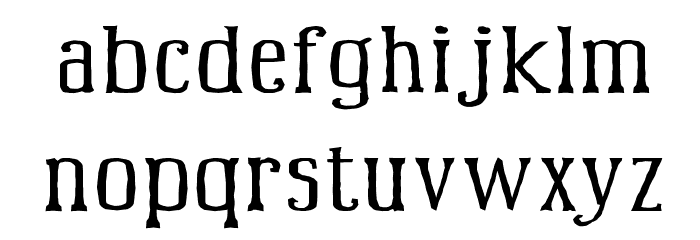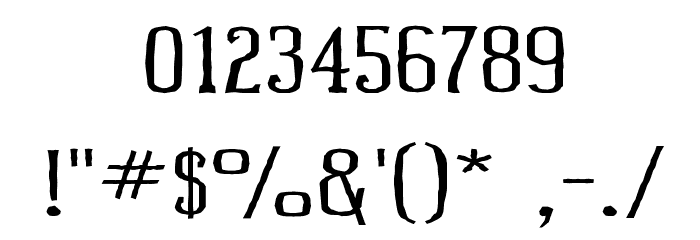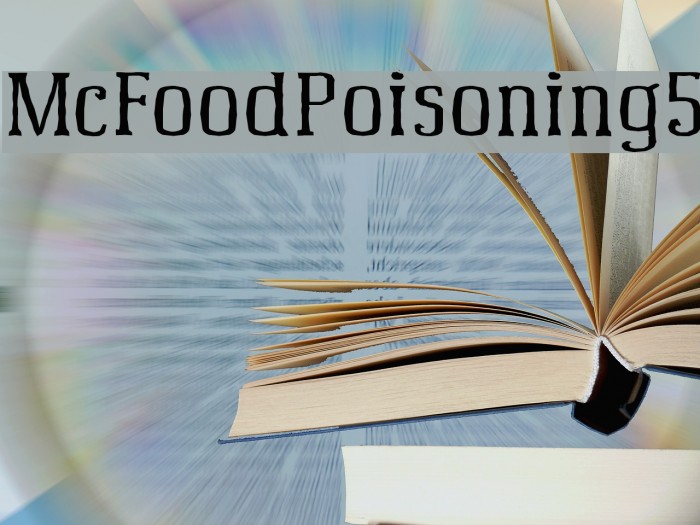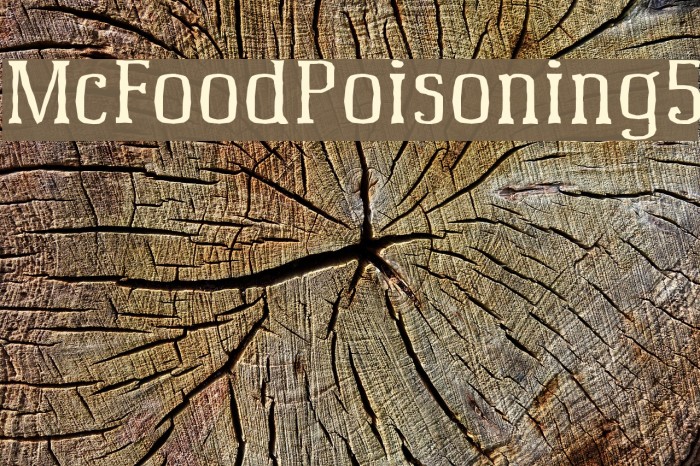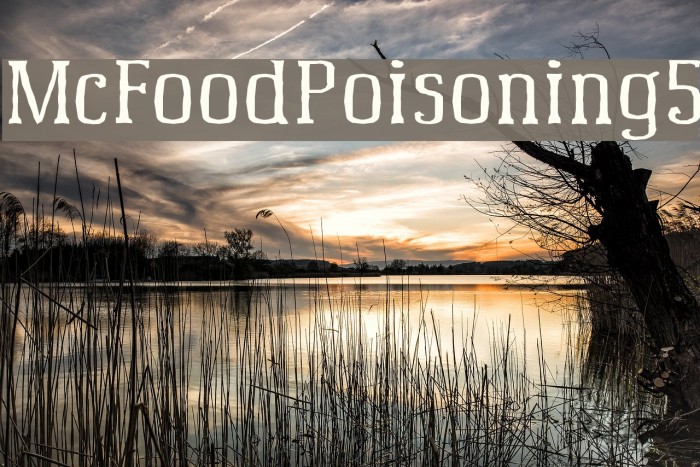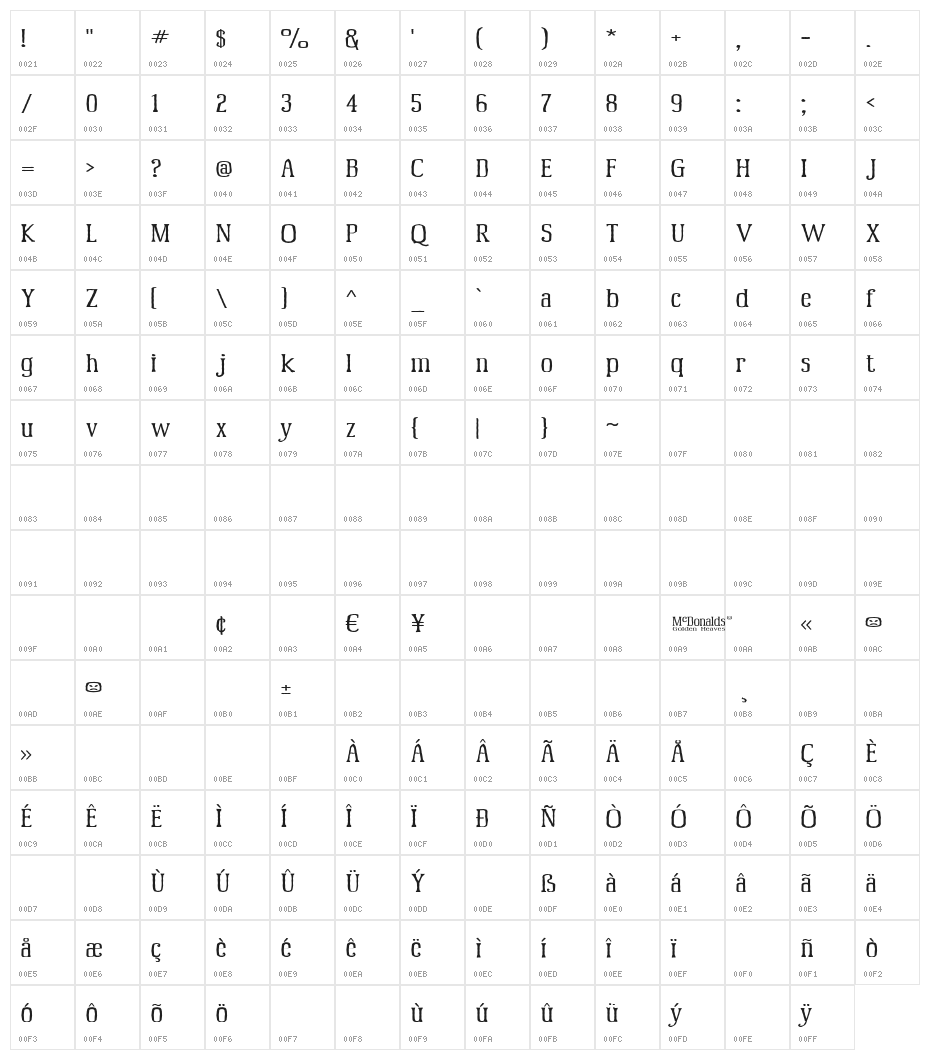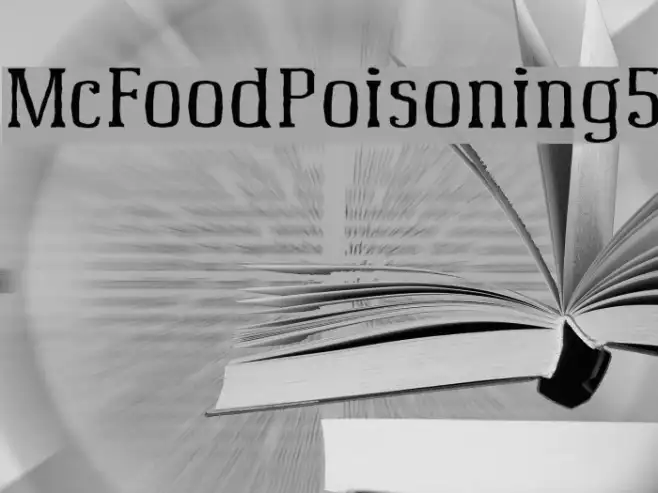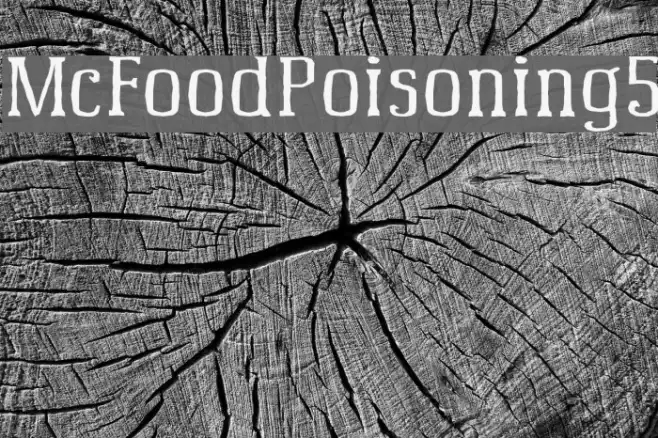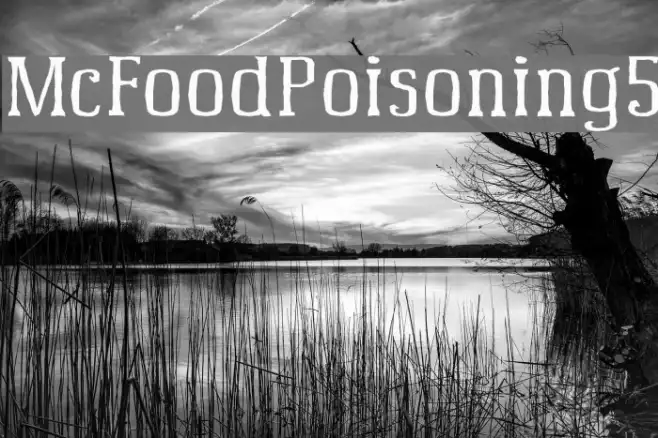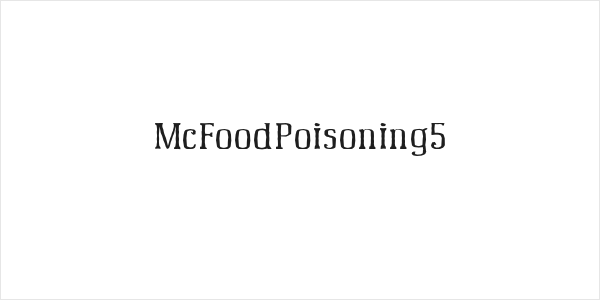
McFoodPoisoning5 Font
This font features a rugged, distressed appearance with uneven strokes and a hand-drawn quality. The uppercase letters are bold and slightly condensed, giving a strong presence, while the lowercase letters maintain a consistent style with a touch of irregularity. The numerals are clear and follow the same distressed aesthetic, making them stand out. Special characters are included and match the overall style, adding versatility for various uses. The font's unique character makes it suitable for projects that require a vintage or rustic feel.
A rugged, distressed font with a hand-drawn appearance.
- Proposed Projects: Ideal for vintage-themed designs, posters, branding for rustic products, or any project needing a handcrafted look.
- Overall Style: Vintage